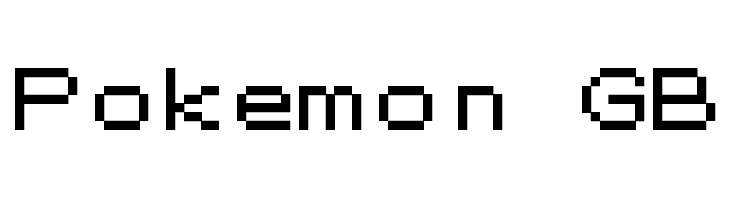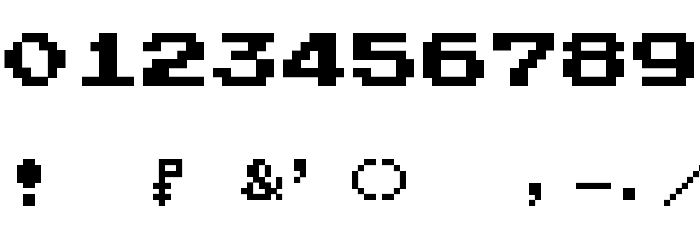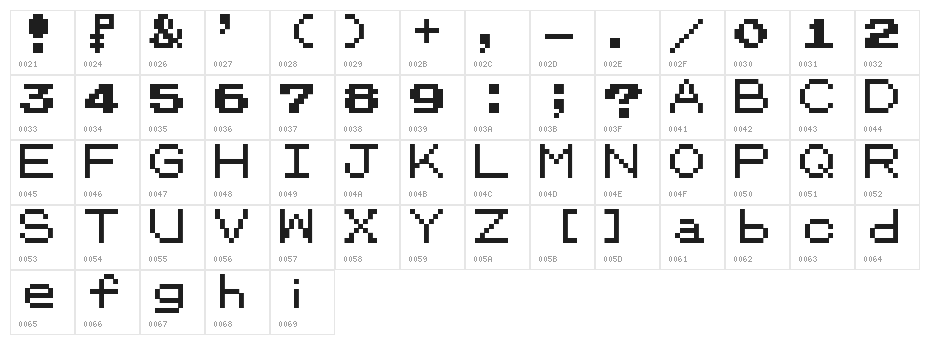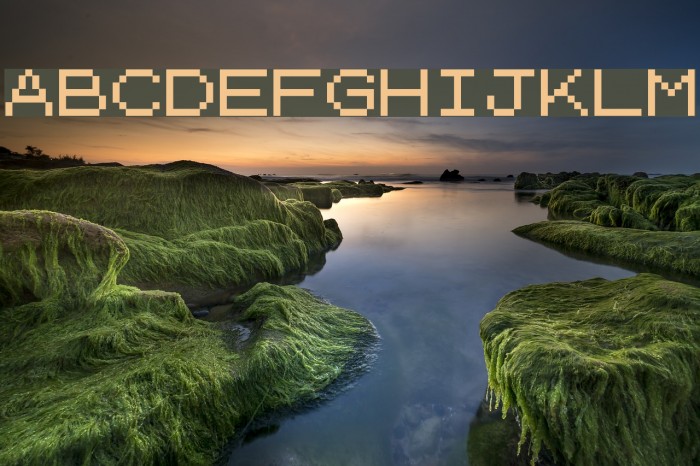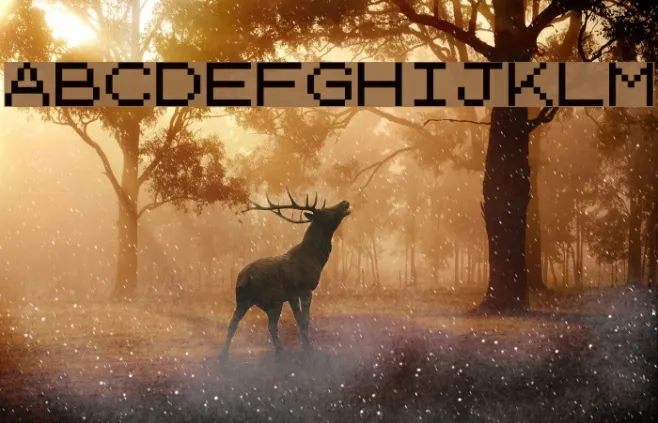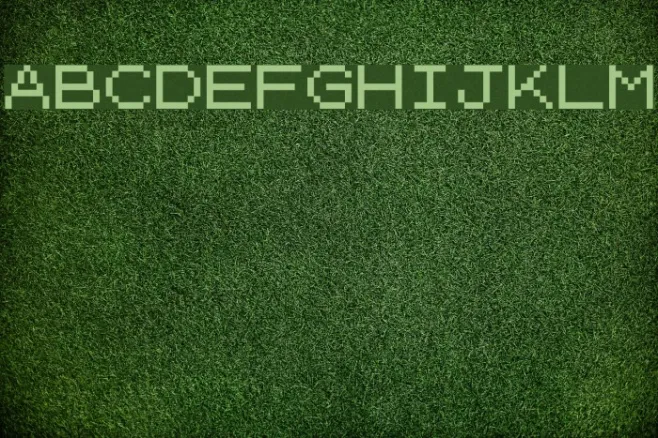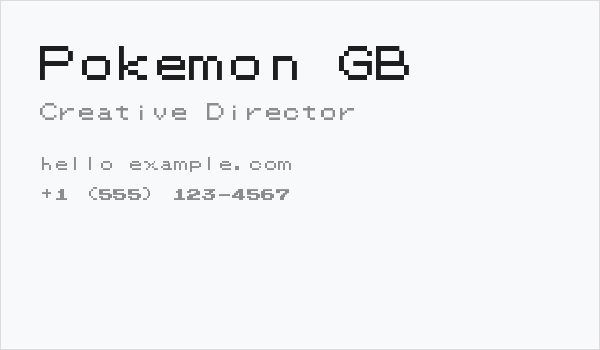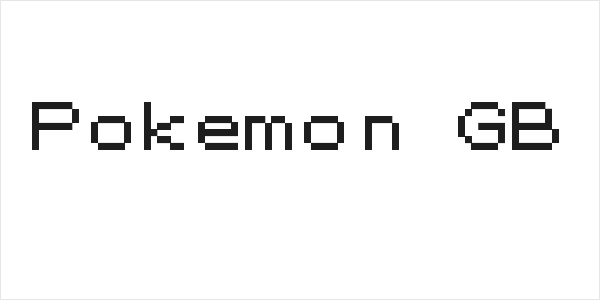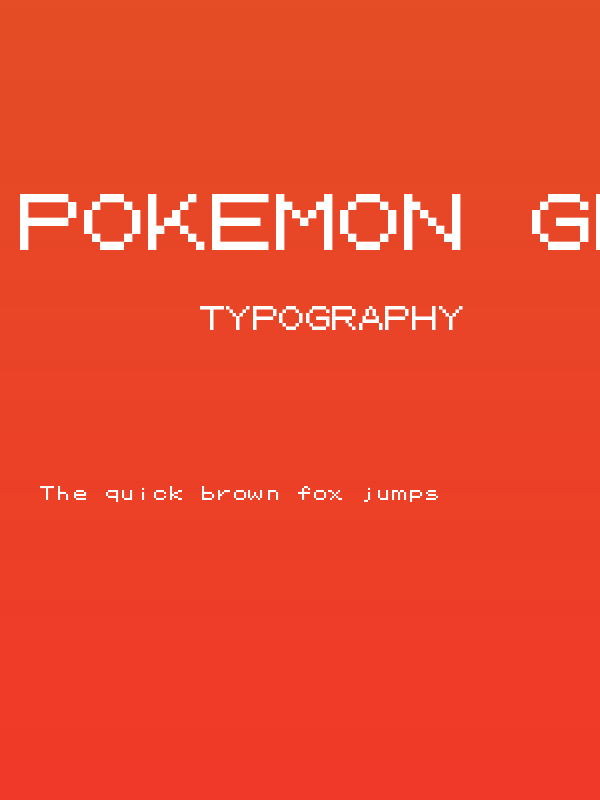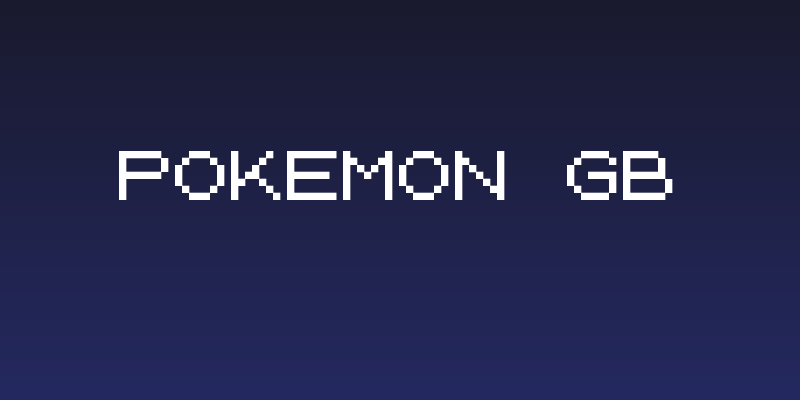
Pokemon GB Font
Pokemon GB Description
This font features a pixelated, retro style reminiscent of classic video games. The characters are composed of small, square blocks, giving it a distinct, nostalgic appearance. The uppercase and lowercase letters maintain a consistent height, with a uniform width that enhances readability. Numbers and special characters follow the same blocky design, ensuring a cohesive look across all glyphs. This font evokes a sense of nostalgia and simplicity, making it ideal for projects that aim to capture the essence of early digital aesthetics.
| Use Case | Headlines, Logos, Digital Art |
| Proposed Projects | Ideal for retro-themed designs, video game graphics, digital art projects, and nostalgic branding. |